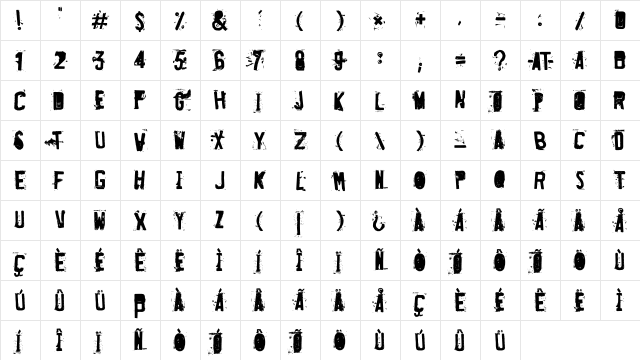
Destroyed License Plate Regular
Designer: Damien Gosset
Design Context for Destroyed License Plate
Destroyed License Plate is a composed and adaptable typeface that performs quietly and consistently across a wide range of design contexts.
Who designed the Destroyed License Plate Regular font?